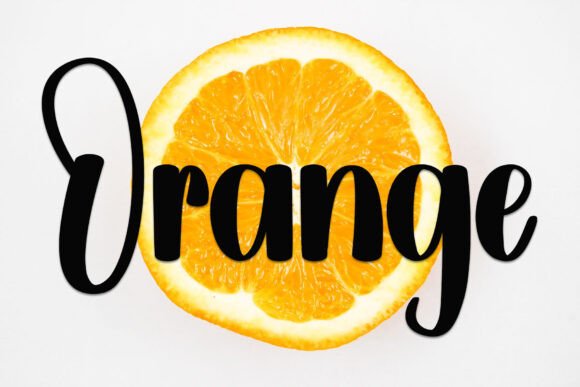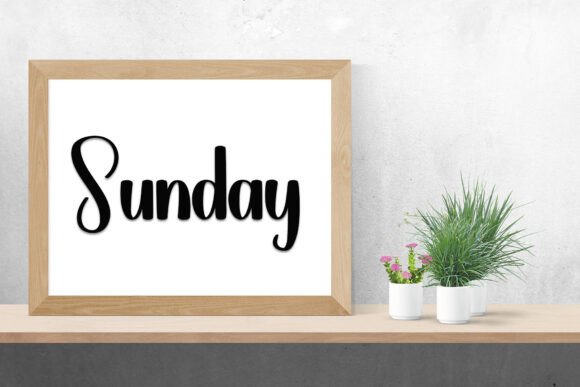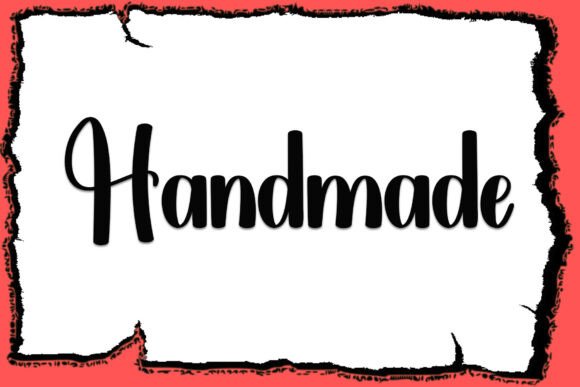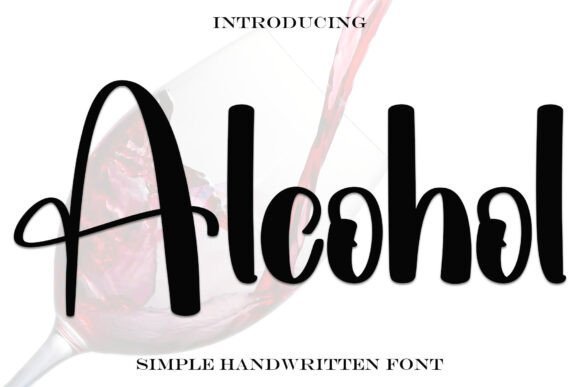
Introduction to Alcohol Font
Alcohol is a trendy handwritten font with a contemporary atmosphere and impeccable form, inspired by timeless classic calligraphy.
It will add elegance and class to any of your design projects .